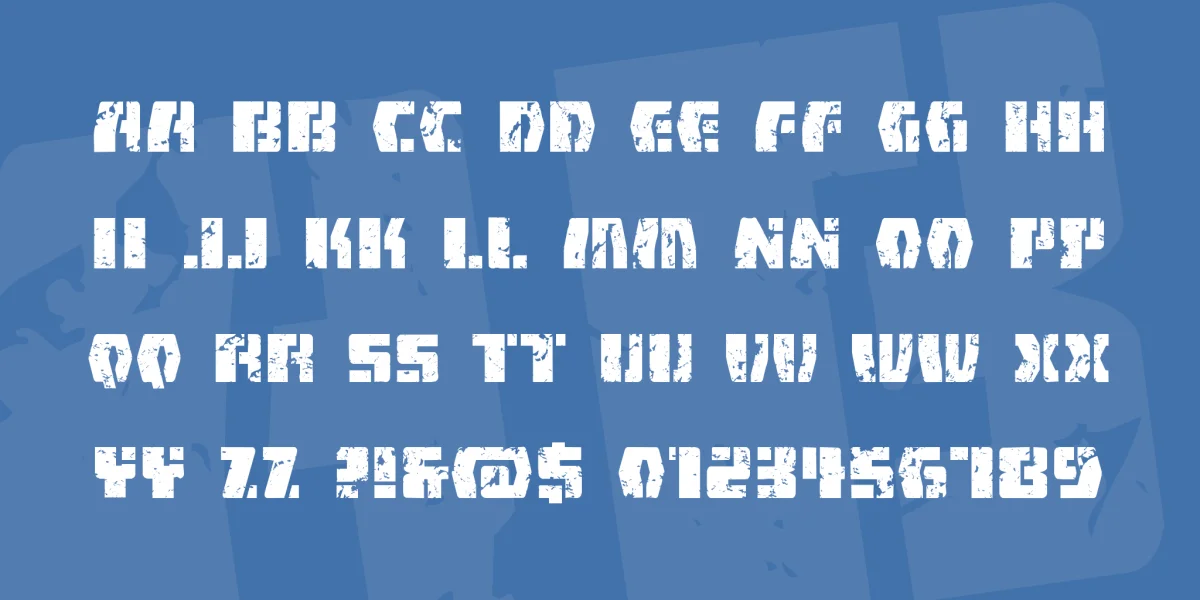
Saddle up you pukes! Strap on that laser blaster and get ready to slap some serious pain on those alien invaders. FIREFIGHT is inspired by sci-fi military equipment after it's been to hell and back! The upper/lowercase keys even have differing wear patterns for that organic look.